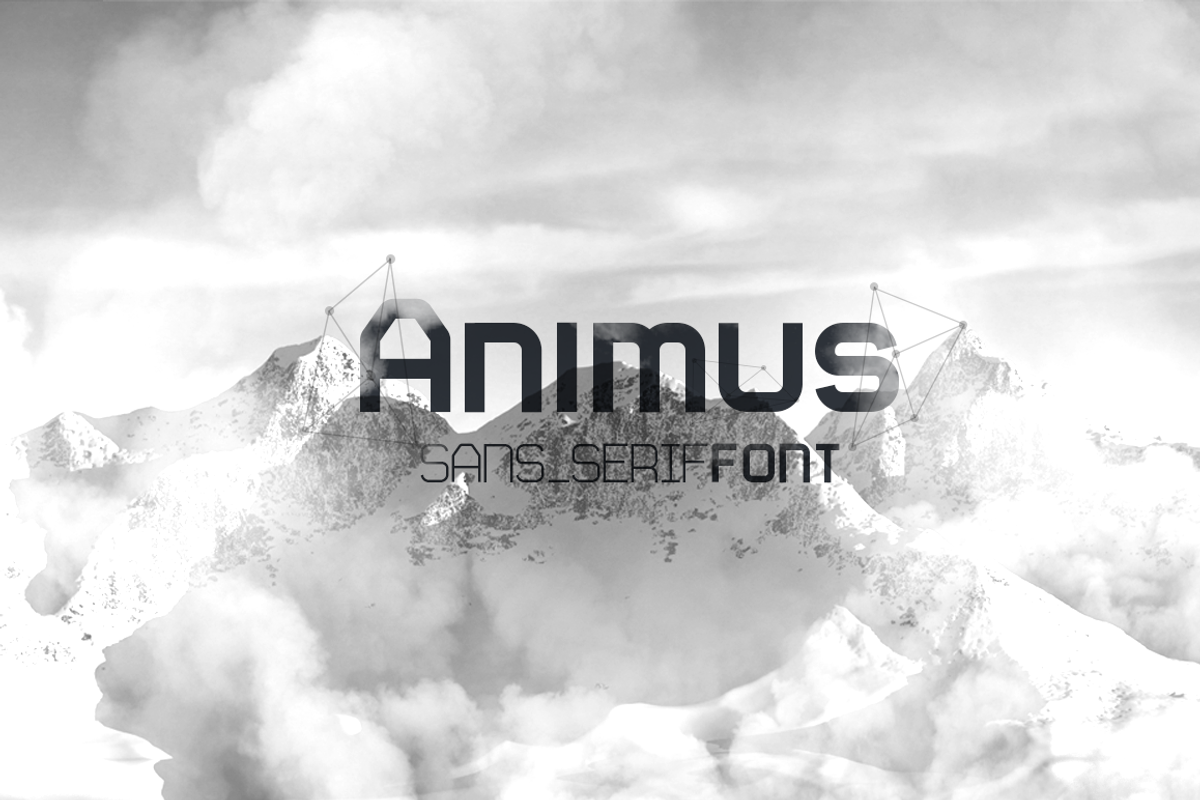
Please note, to use this font for commercial purposes, you must purchase the full version. Animus is a dynamic and elegant font designed to bring sophistication and energy to your projects. With its smooth curves and modern letterforms, this font is perfect for logos, branding, headlines, and creative designs. Whether you're working on a high-end brand or a stylish promotional material, Animus adds a touch of refinement and boldness. Test it out and enjoy free download access for personal use. Explore the versatility and charm of Animus Font Free Download before purchasing the commercial license. Elevate your design projects with the timeless appeal of Animus.